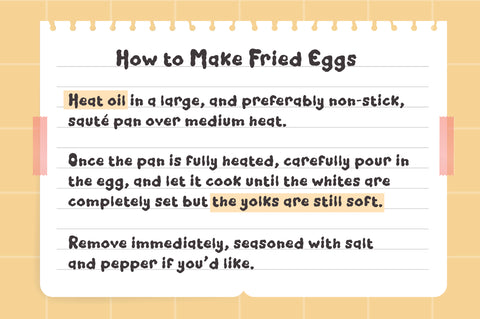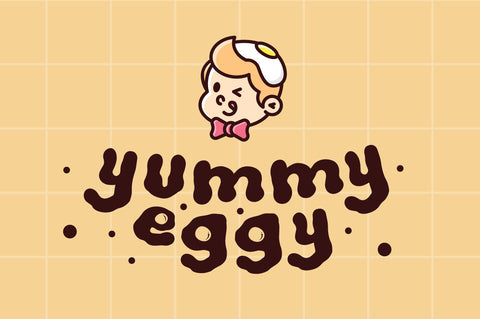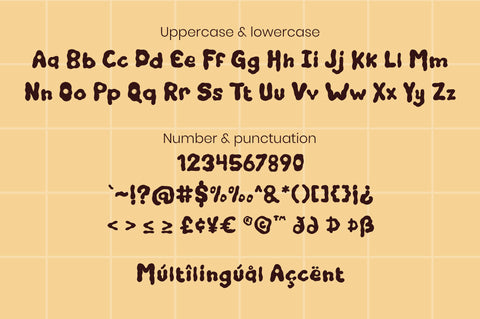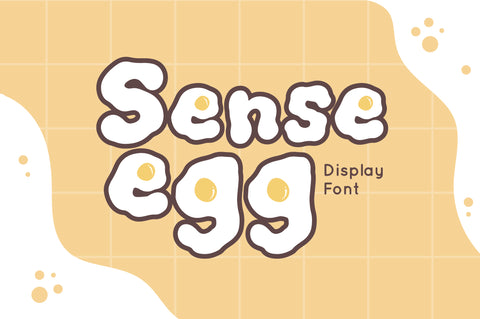
Sense Egg - Display Font
Sense Egg is a display food font inspired by sunny side egg, Fall in love with it and bring your projects to the highest levels!
Sense Egg is perfect for food branding, logo, invitation, stationery, social media post, product packaging, merchandise, blog design, game titles, cute style design, Book/Cover Title and more.